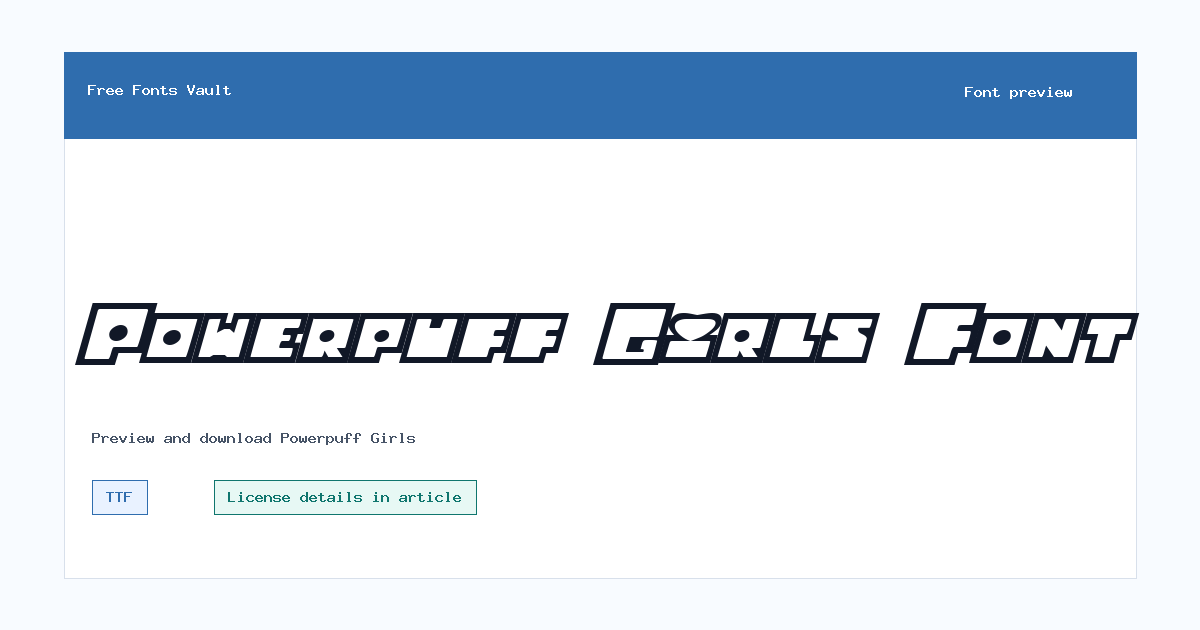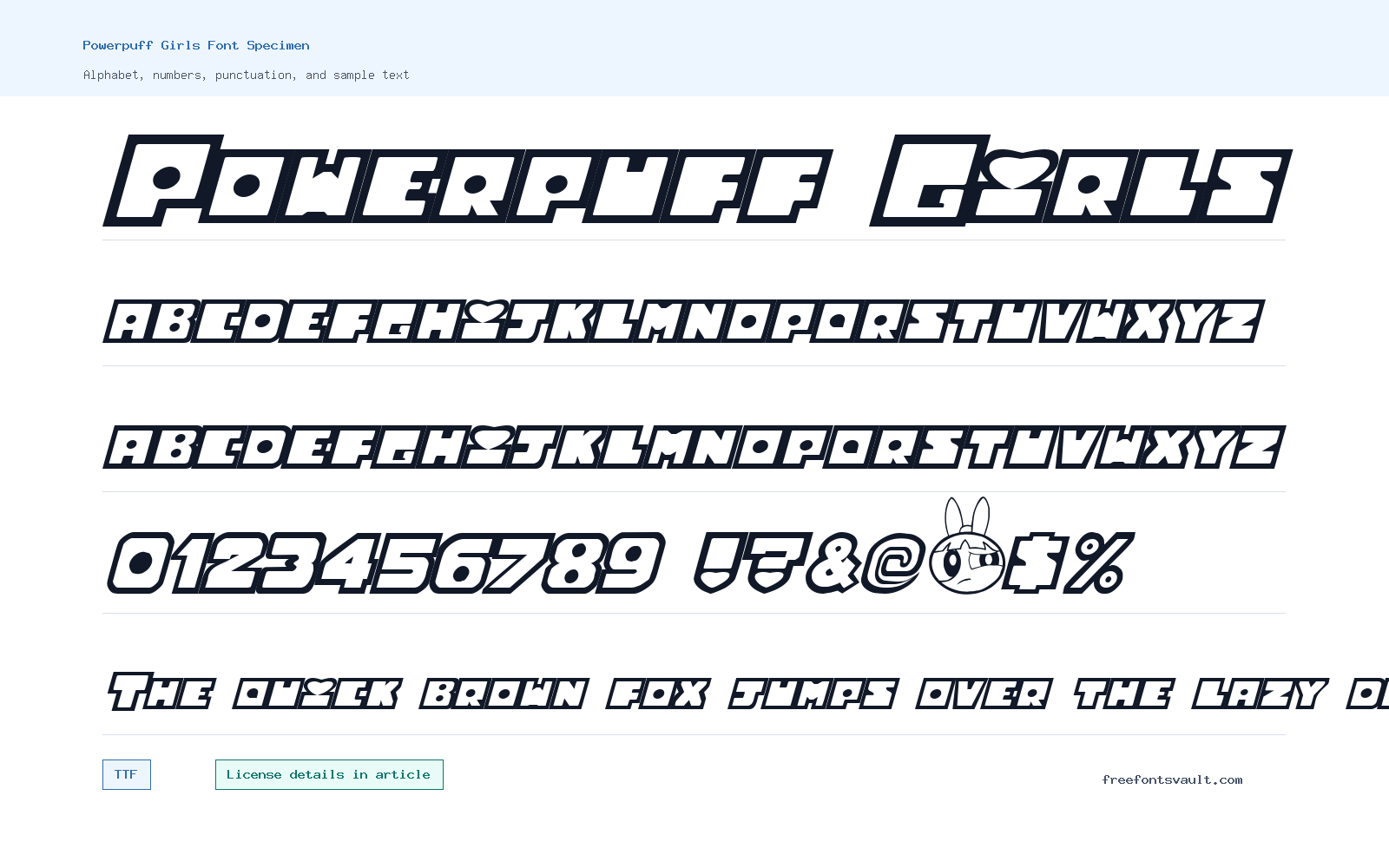
Powerpuff Girls
- Designer (C)2000 Tom White www.clik.to/ppg
Powerpuff Girls is a playful display font with a cartoon feel, suited to short headlines, stickers, poster text, and fan-style designs that need a bright, energetic look.
About Powerpuff Girls Font
The Powerpuff Girls font comes as a regular TrueType font file. Its style works best when the text is kept short, because display fonts usually make the strongest impact in names, titles, labels, and decorative headings rather than long paragraphs.
- Cartoon-like display lettering for short text
- Playful letter shapes that work best when the word count stays low
- Fan-style graphics, stickers, and playful posters
- Headlines, banners, thumbnails, and decorative titles
- Personal party graphics, fan posters, sticker labels, and playful title art
Keep this font for short, high-impact text. Test spacing in the preview, avoid long body copy, and pair it with a simple readable sans serif when you need supporting text. For a cleaner poster or page, use it only for the main word or title. Put dates, prices, instructions, download notes, and longer descriptions in a simple sans serif so the design stays readable.
What is this font best used for?
It is best for short display uses such as titles, posters, stickers, thumbnails, party graphics, and fan-style artwork.
Is Powerpuff Girls good for paragraphs?
No. It is better for short words and headings. For paragraphs or instructions, pair it with a cleaner text font.